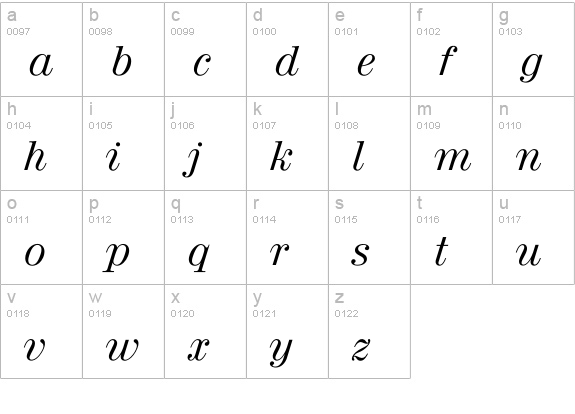
Ivalencia Regular is the standard, neutral variant in the Ivalencia typeface family \xE2\x80\x94 well suited to general body text, paragraphs, and standard typographic work.
Ivalencia Regular font is a stunning typeface that exudes elegance and sophistication. Its clean lines and balanced proportions make it perfect for a wide range of design projects. Whether you're working on a logo, website, or print materials, Ivalencia Regular will add a touch of class to your work. This font features a timeless design with subtle yet eye-catching details. The letterforms are beautifully crafted, with smooth curves and sharp edges that create a harmonious balance. The spacing between characters is carefully considered, ensuring optimal legibility and readability. What sets Ivalencia Regular apart is not only its exceptional design, but also the fact that it is available for free. Yes, you read that right! You can freely download Ivalencia Regular at FontsMarket.com. This means that you can enhance your creative projects without having to spend a dime. Whether you're a professional designer or a hobbyist, having access to high-quality fonts like Ivalencia Regular can make a world of difference in your work. Its versatility and timeless appeal make it suitable for a variety of design styles and purposes. From elegant wedding invitations to sophisticated branding projects, Ivalencia Regular will elevate your designs and leave a lasting impression. So why wait? Head over to FontsMarket.com and download Ivalencia Regular for free. Start adding a touch of class and sophistication to your design projects today!